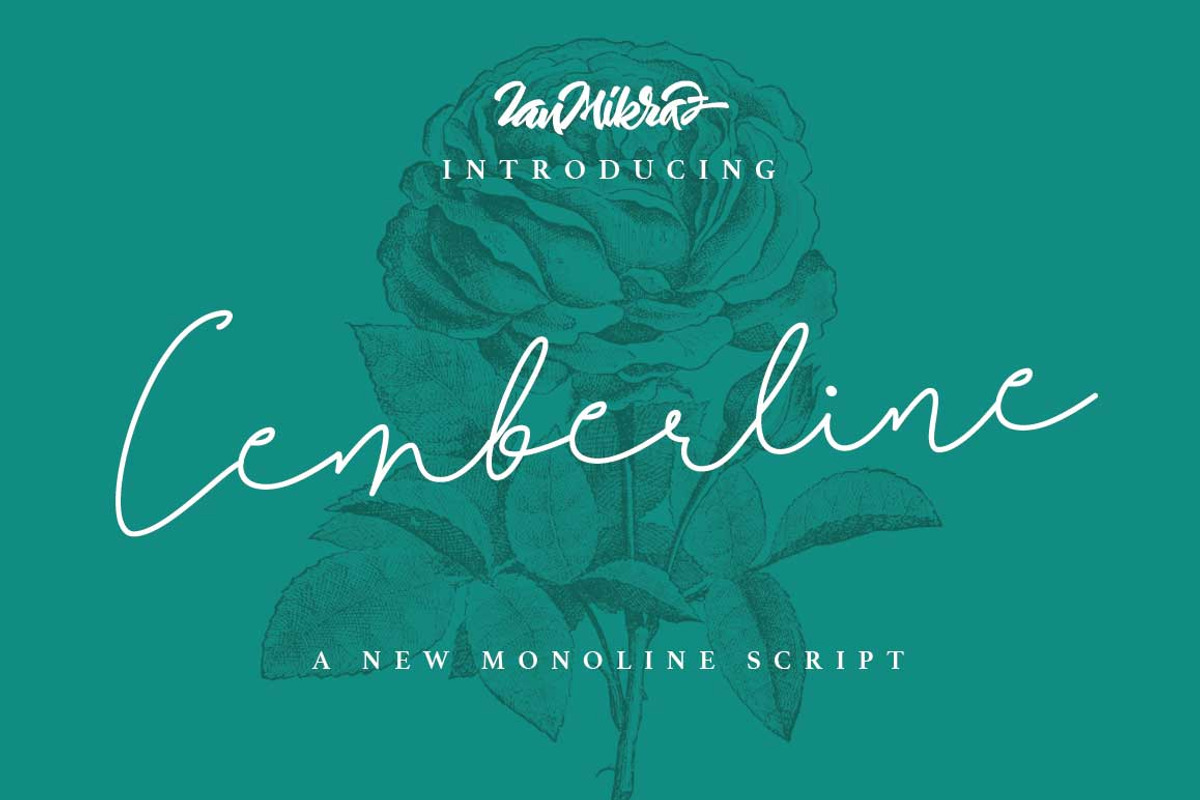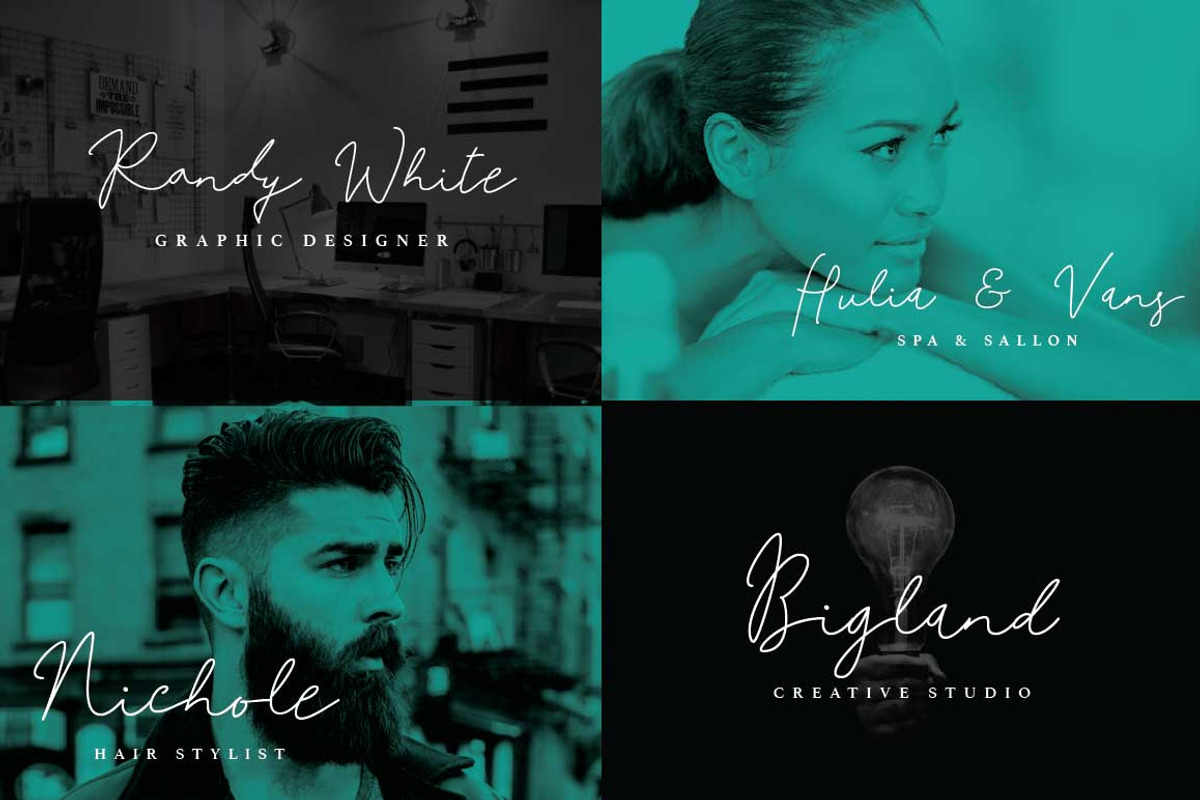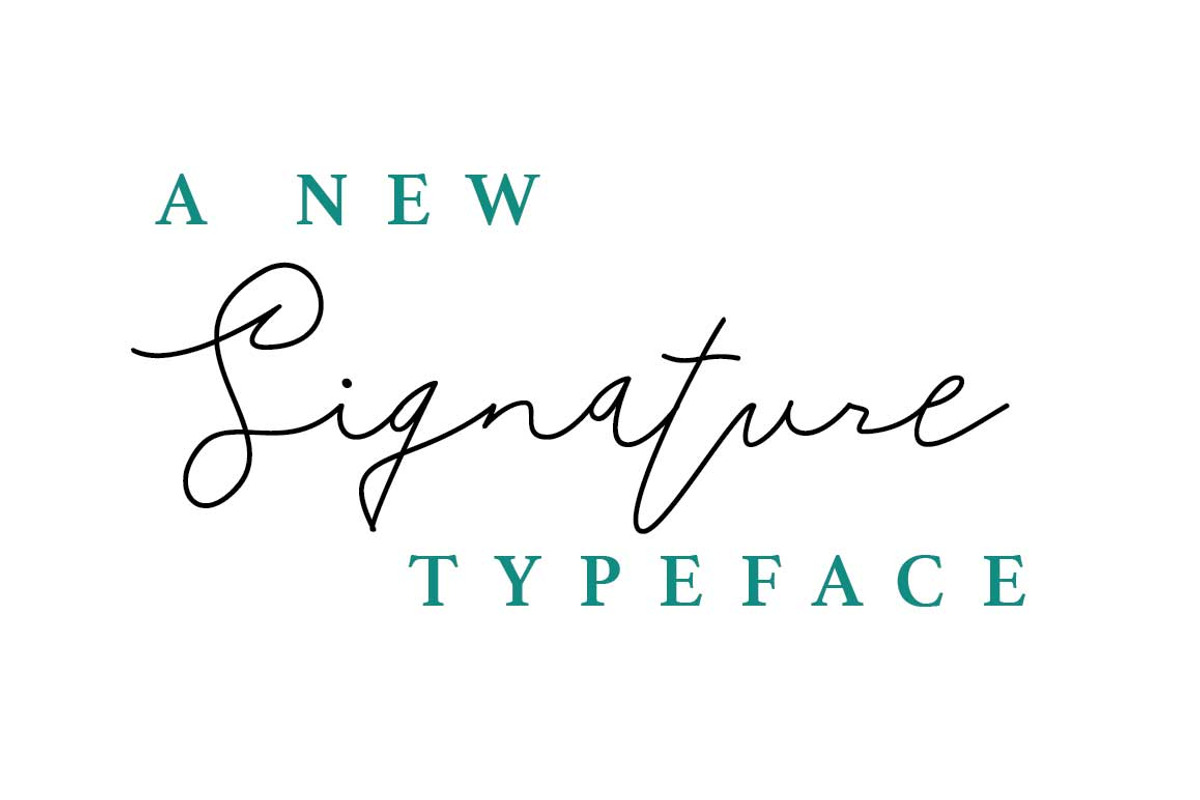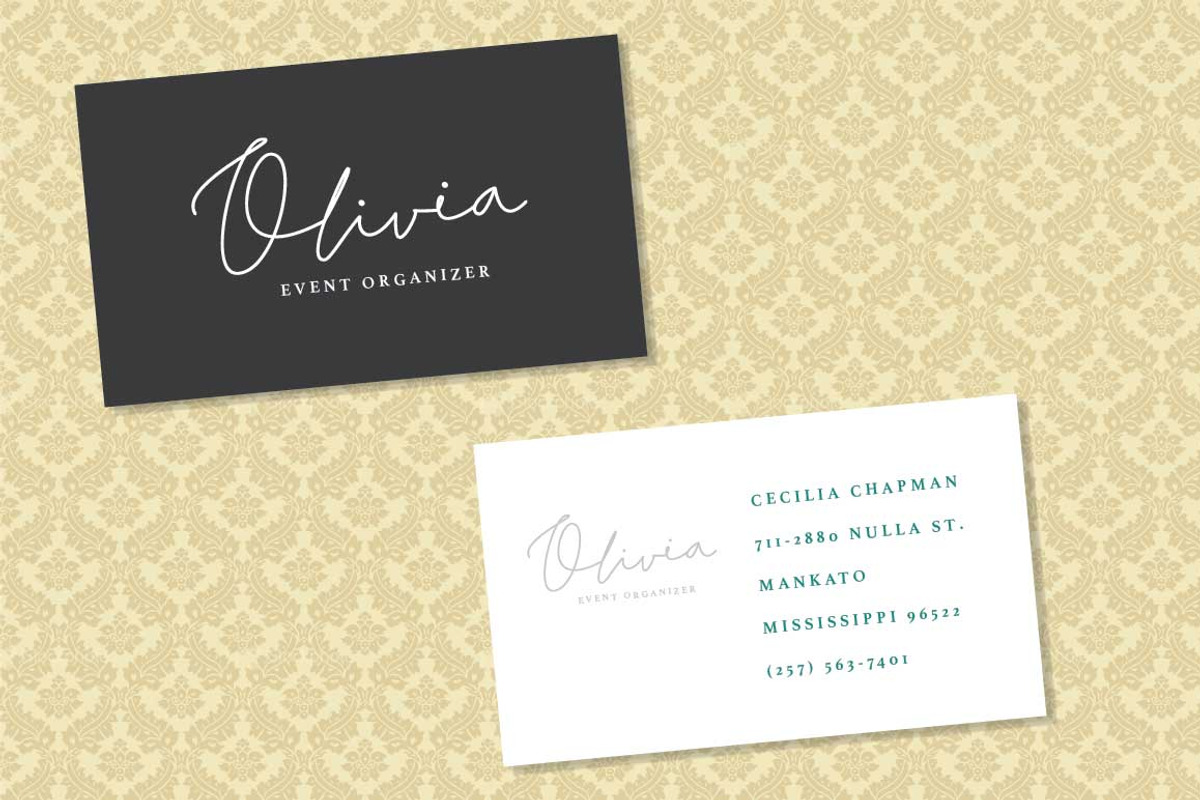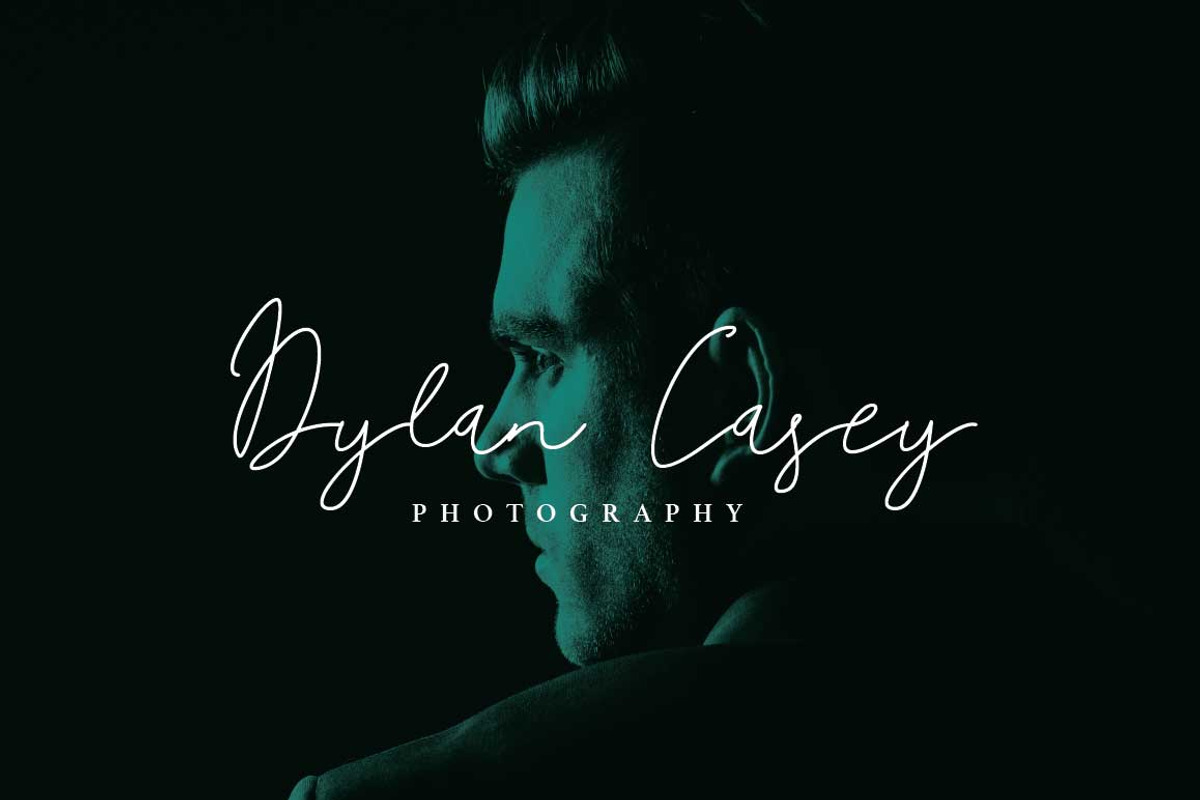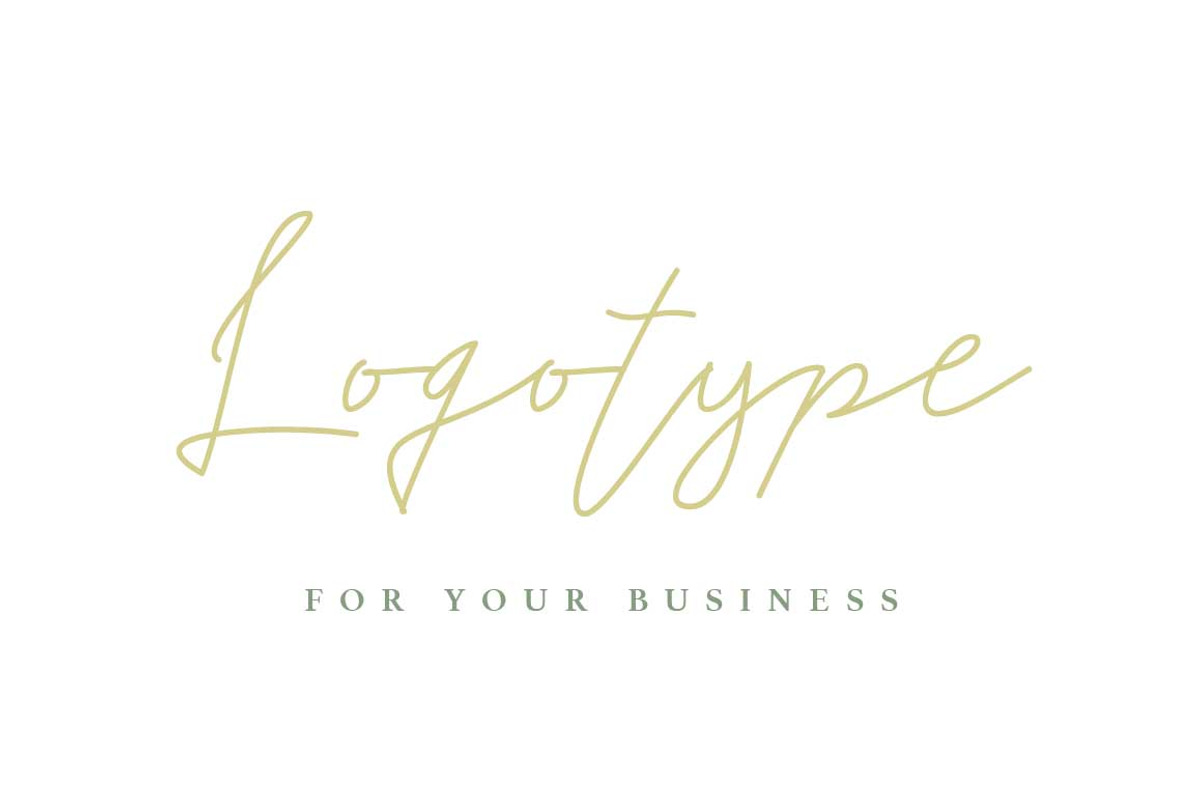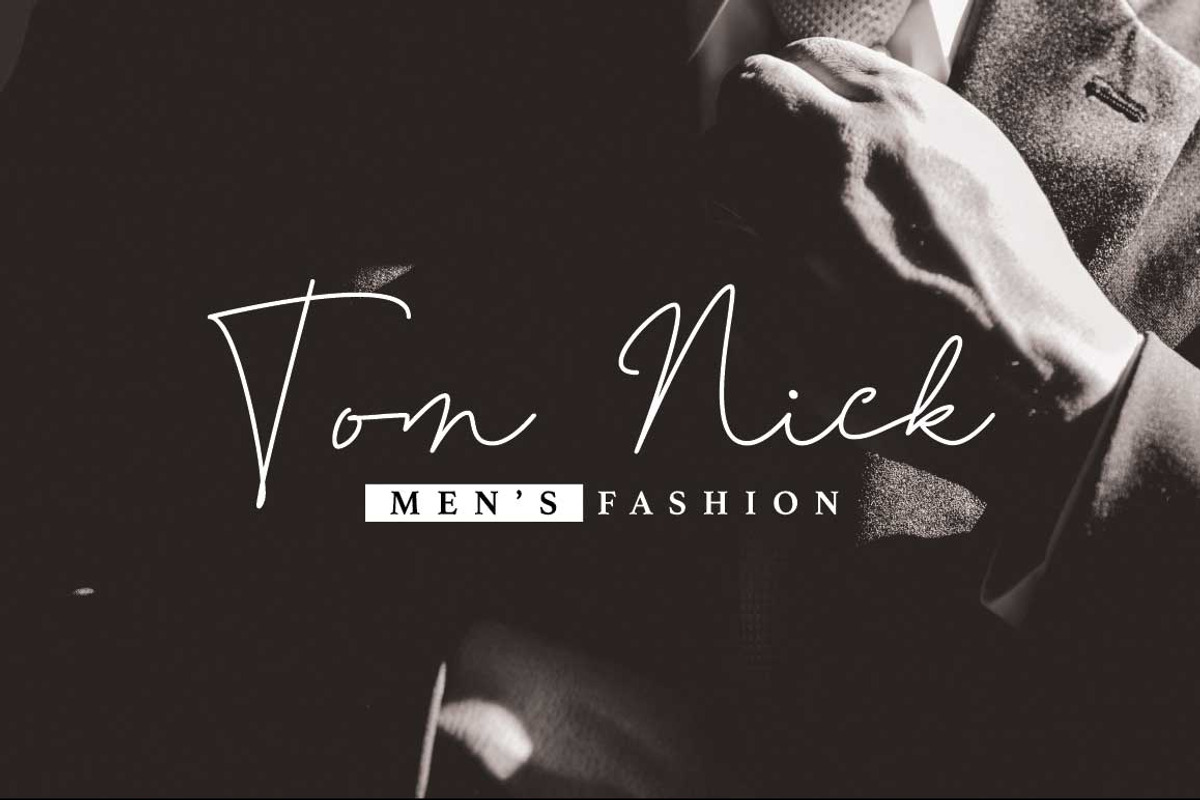
Cemberline Typeface
Cemberline Typeface is a new Monoline Script Typeface Fonts collection from Ianmikraz studio, combines from copperplate to contemporary typeface, classic, beauty and elegant touch.
Cemberline Typeface features 224 glyphs and 32 alternate character contain with opentype features and has given PUA unicode (specially coded fonts), with tons of alternate characters. Stylistic Alternates, Standart Ligature and more.You can access all those alternate characters by using OpenType savvy programs such as Adobe Illustrator, Adobe InDesign and CorelDraw X6-X7.
Cemberline Typeface is suitable for Apparel Brand, any greeting cards, Painting design style, or any design that needs natural and personal touch. Mix and match the alternate characters to add an attractive message to your design.